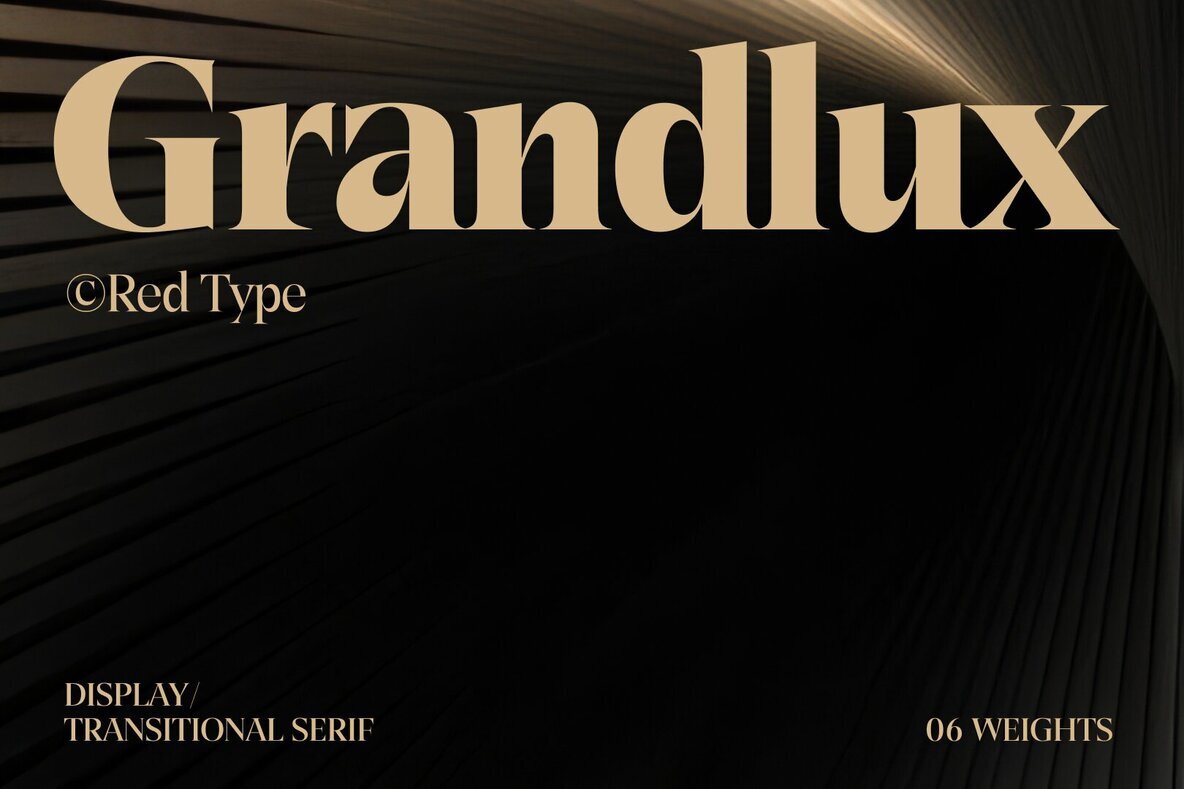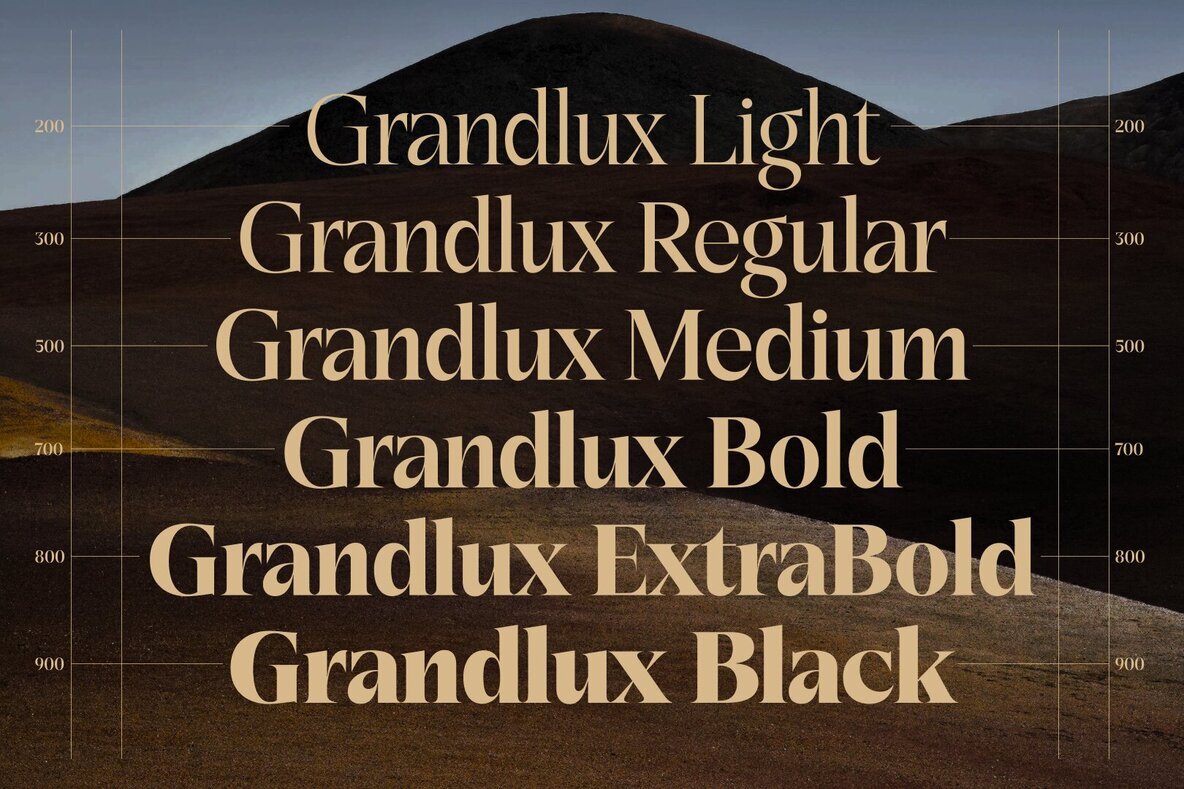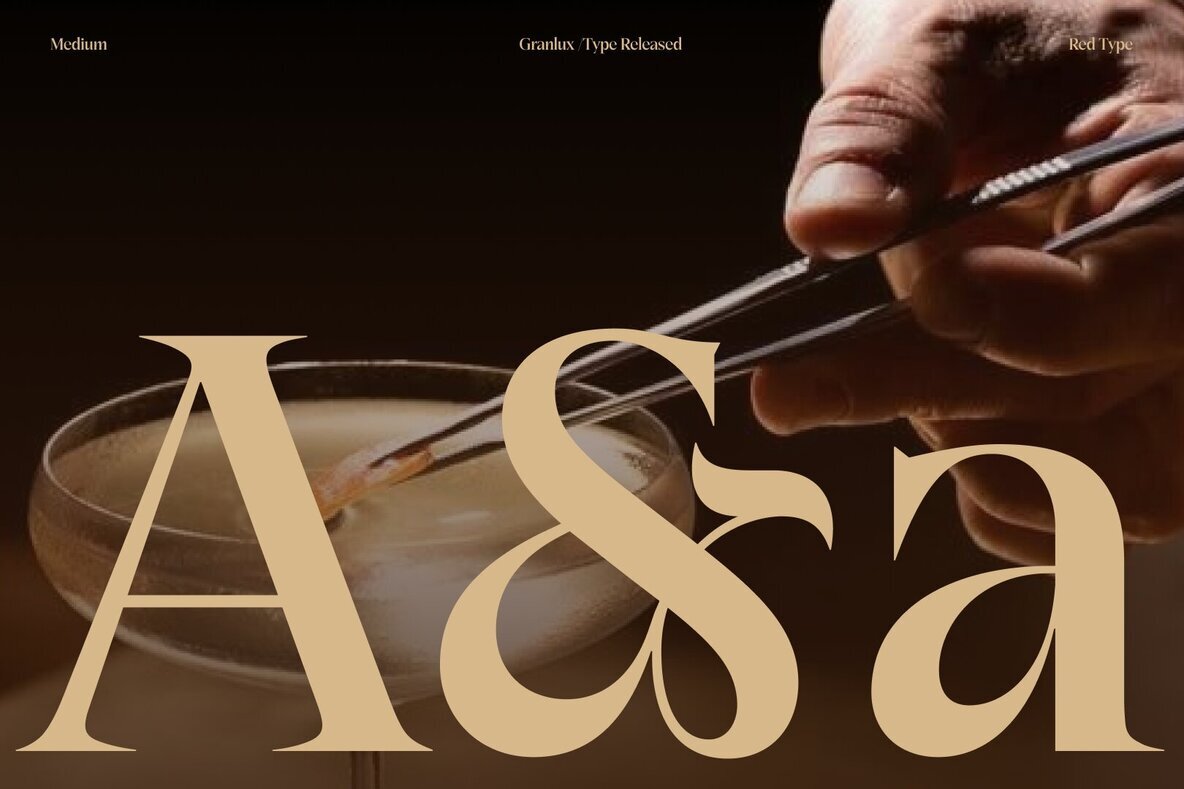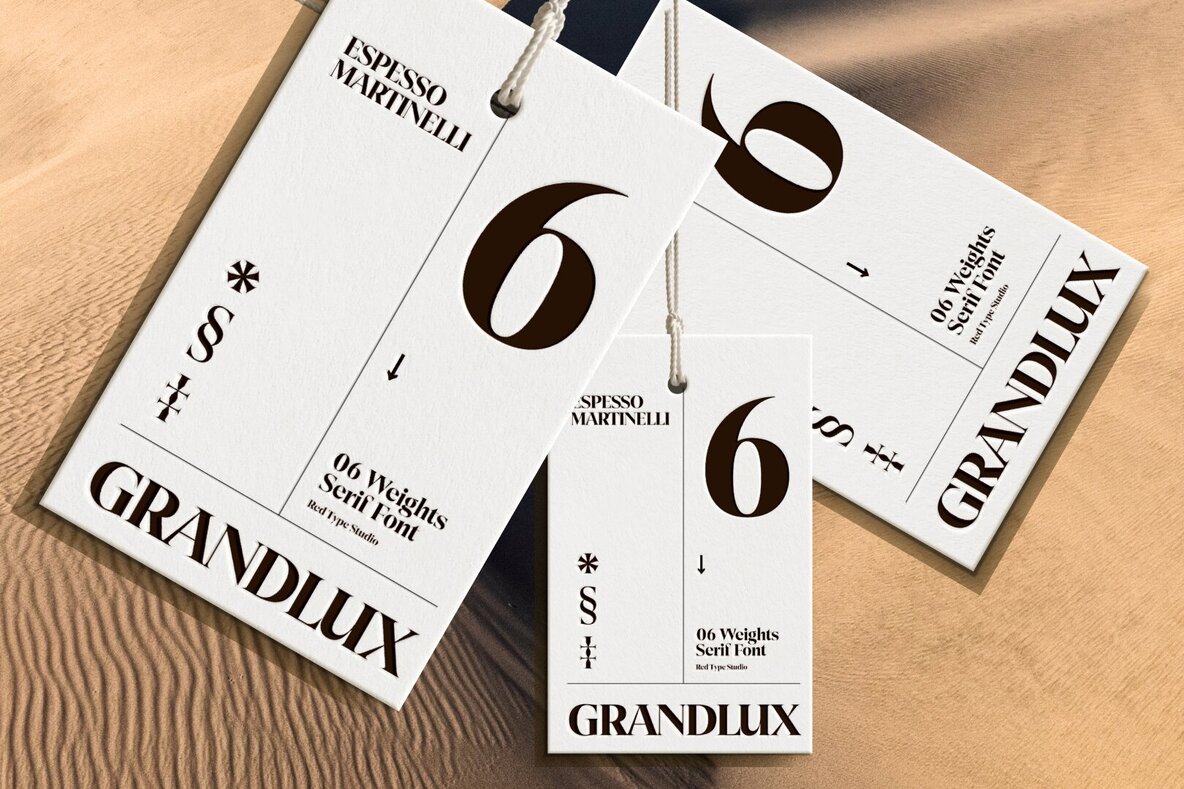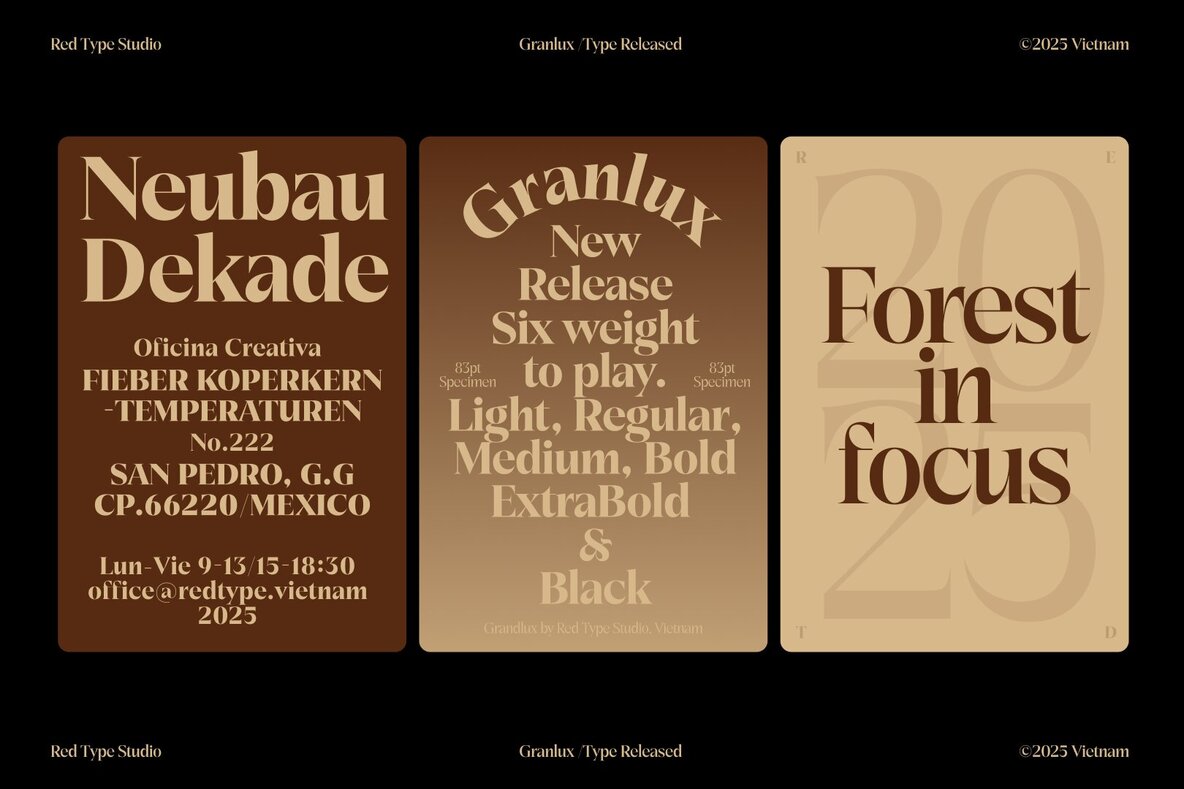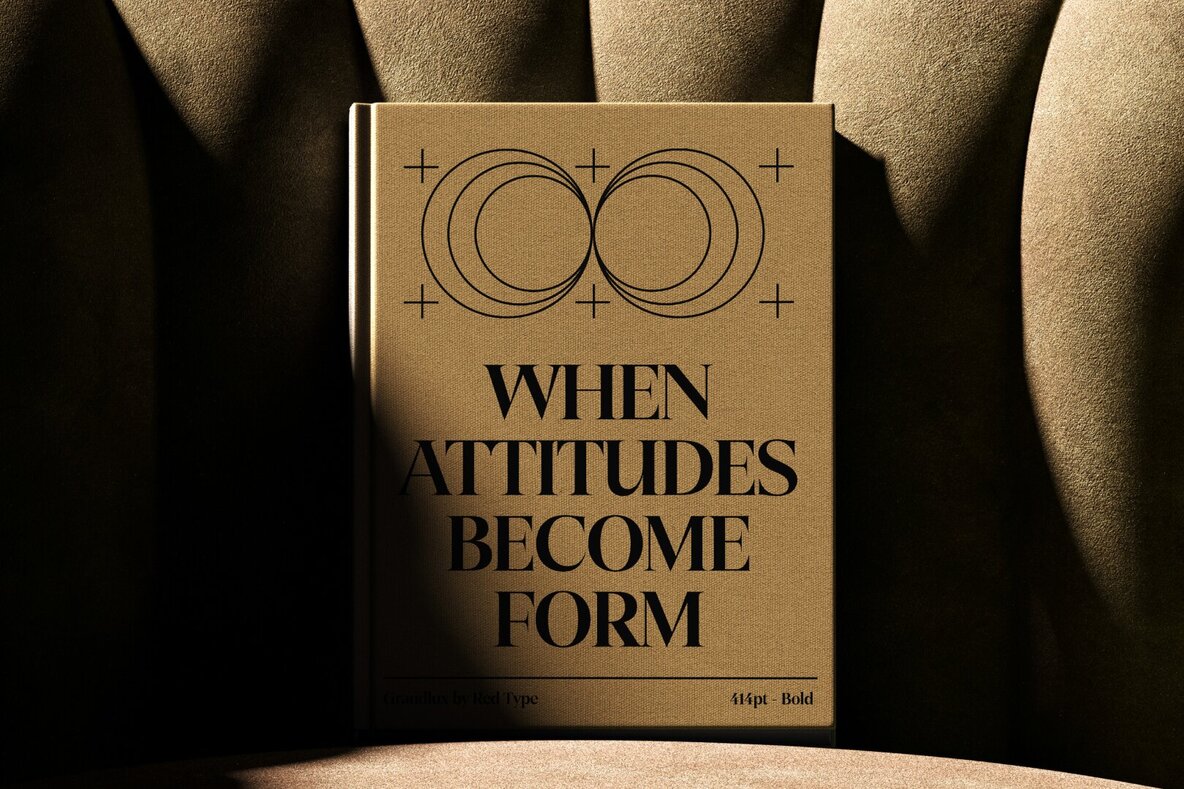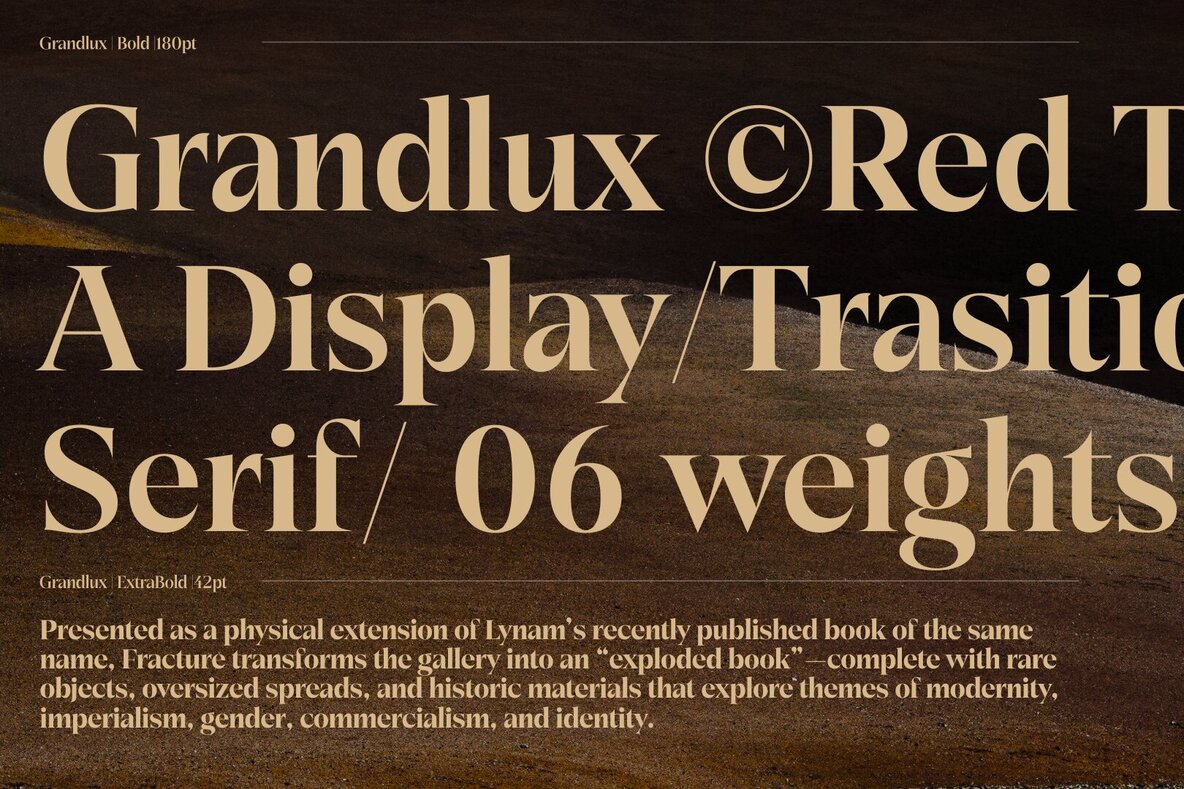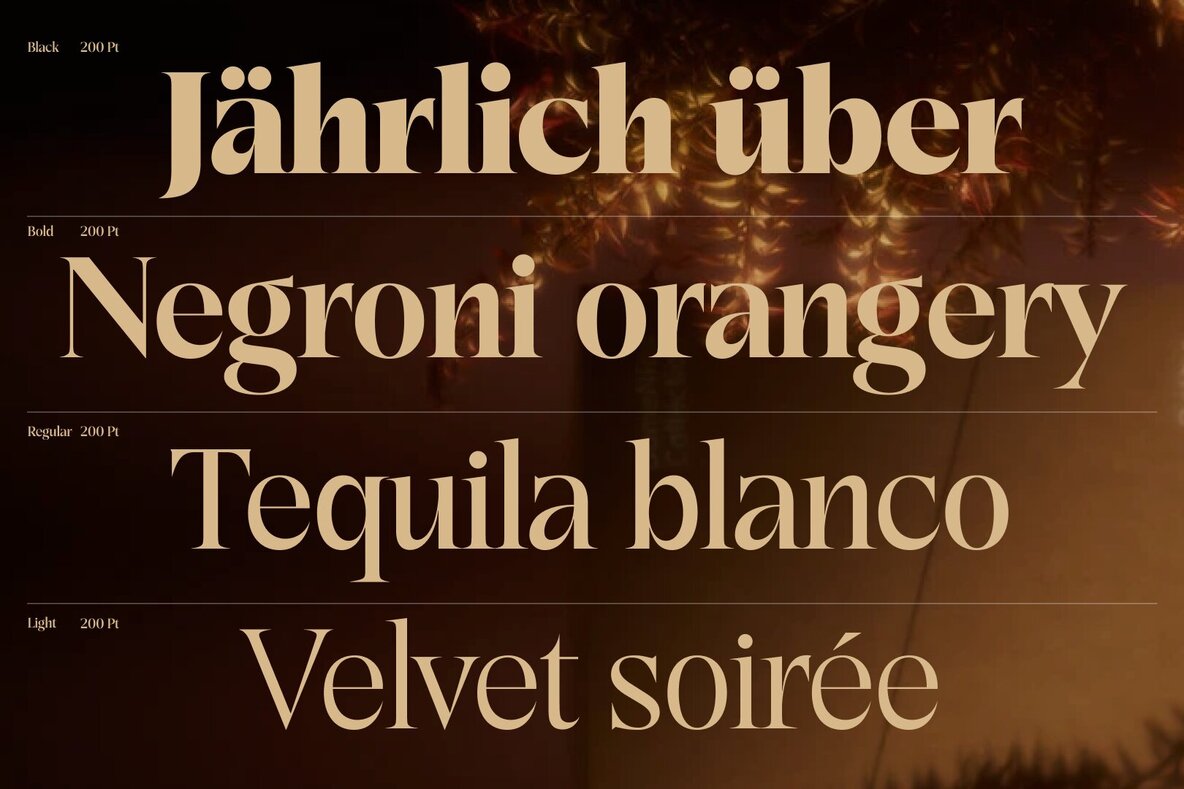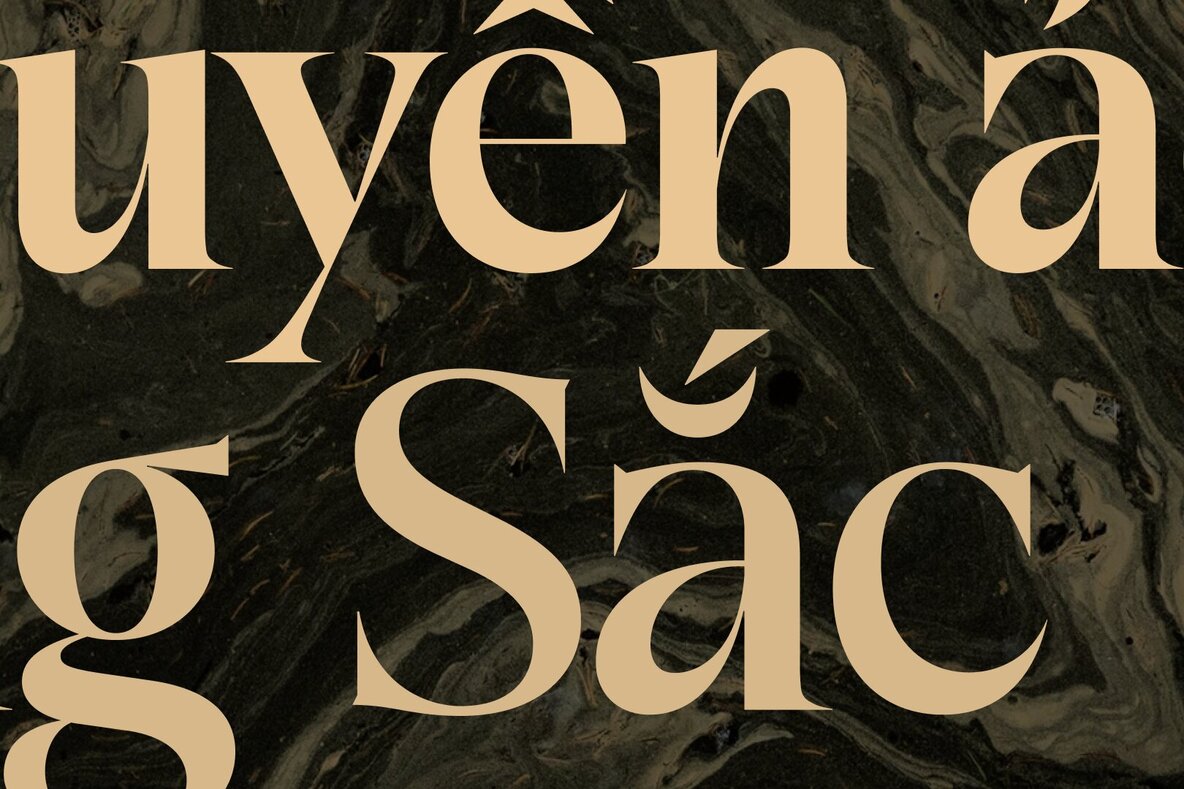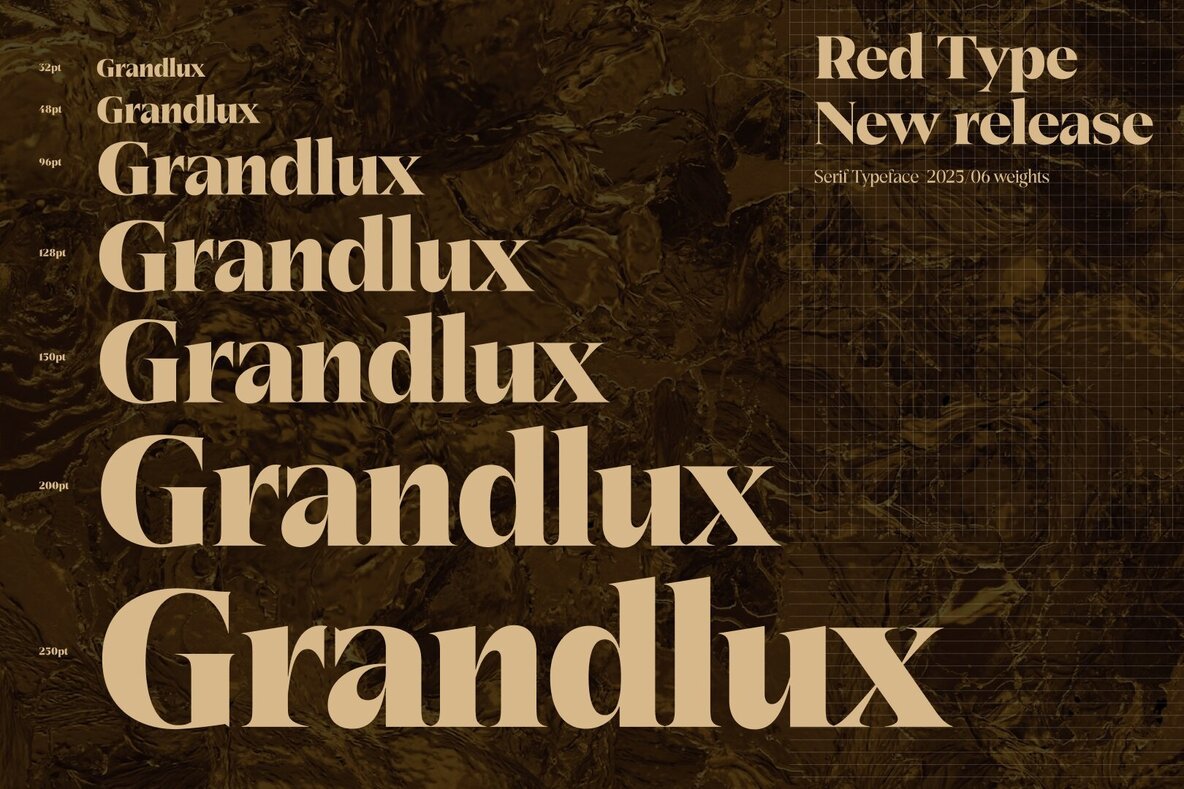
Grandlux Font
Grandlux combines classic serif structure with a modern edge, showcasing high-contrast letterforms and crisp serifs. The result is a sophisticated, luxurious look, ideal for projects that require a refined and confident voice. With six versatile weights ranging from a delicate Light to a powerful Black, Grandlux helps create perfect visual hierarchy. The typeface is enriched with OpenType features and offers extensive language support, including a full character set for Extended Latin and Vietnamese. Features: Grandlux is flawlessly suited for luxury branding, editorial headlines, high-end packaging, and sophisticated web design.Grandlux: A Transitional Serif of Modern Elegance
After nearly a decade self-navigating in the waters of Western calligraphy, I’m steering boldly into a new world: type design. Does the world need another typeface? With thousands already out there, you’d think not. But every new typeface brings something unique, and I’m here to add more finesse—handcrafted an...